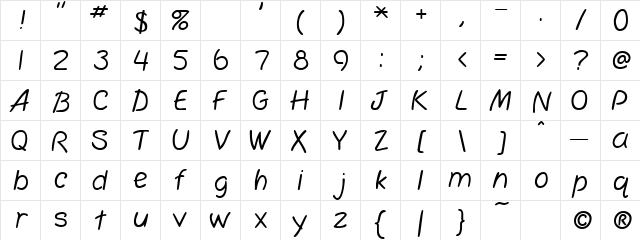
SimplicityMedium Regular
Design Context for SimplicityMedium Typeface
SimplicityMedium offers clean, dependable letterforms without strong stylistic allegiance, making it a practical choice for designers who need flexibility.